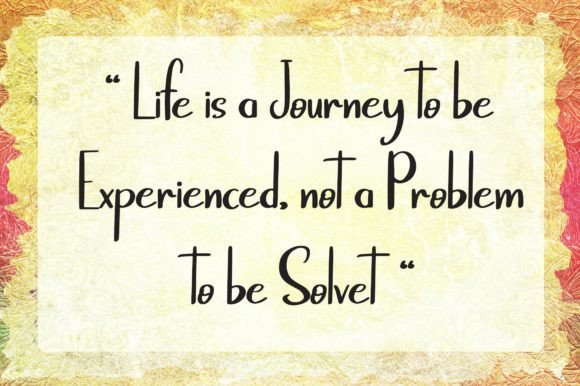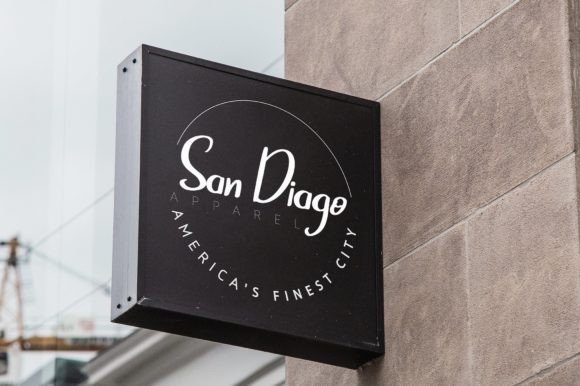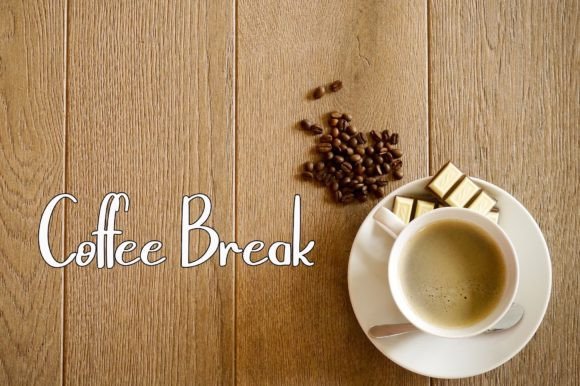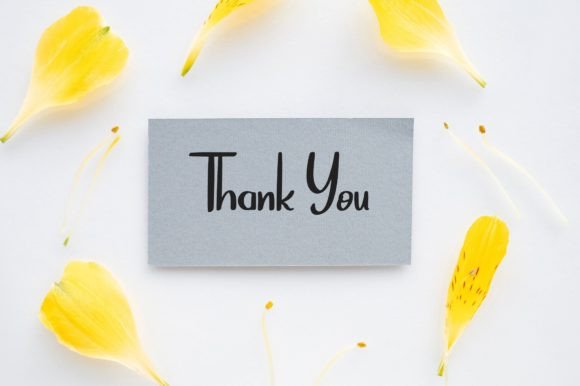
Introducing Farmhouse Font: The Perfect Addition to Your Design Toolkit
Are you a designer, crafter, or educator looking for a font that adds a personal touch to your creations? Look no further than Farmhouse Font, a delicate and simple-lettered handwritten font that’s perfect for a variety of projects. In this article, we’ll explore the features and benefits of Farmhouse Font, and show you how it can elevate your designs to the next level.
Farmhouse Font is a beautiful, handwritten font that’s designed to mimic the look of traditional chalkboard writing. Its delicate and simple lettering makes it perfect for creating chalkboard quotes, teaching materials, and other designs that require a personal and realistic feel. With its authentic look and feel, Farmhouse Font is ideal for designers and crafters who want to add a touch of warmth and personality to their work.
- Delicate and simple lettering: Farmhouse Font features a beautiful, handwritten script that’s perfect for creating elegant and sophisticated designs.
- Authentic look: The font’s traditional chalkboard writing style gives it an authentic look that’s perfect for creating realistic and eye-catching designs.
- Perfect for chalkboard quotes: Farmhouse Font is specifically designed for creating chalkboard quotes, making it a must-have for designers and educators who want to create stunning and inspiring quotes.
- Great for teaching materials: The font’s clear and easy-to-read design makes it perfect for creating teaching materials, such as worksheets, handouts, and presentations.
Benefits of Using Farmhouse Font
So why choose Farmhouse Font for your design projects? Here are just a few benefits of using this beautiful font:
- Adds a personal touch: Farmhouse Font’s handwritten design gives your creations a personal and realistic feel that’s hard to achieve with other fonts.
- Versatile: The font’s simple and elegant design makes it perfect for a variety of projects, from chalkboard quotes to teaching materials and more.
- Easy to read: Farmhouse Font’s clear and simple design makes it easy to read, even at small sizes.
- Unique and eye-catching: The font’s traditional chalkboard writing style gives it a unique and eye-catching look that’s sure to stand out from the crowd.
How to Use Farmhouse Font in Your Designs
Using Farmhouse Font in your designs is easy! Here are a few tips to get you started:
- Pair it with other fonts: Farmhouse Font looks great paired with other fonts, such as bold sans-serif fonts or elegant script fonts.
- Use it for headings and titles: The font’s clear and easy-to-read design makes it perfect for headings and titles.
- Add some texture: To give your designs an extra touch of authenticity, try adding some texture to your Farmhouse Font text, such as a chalkboard or blackboard texture.
Tips and Tricks for Getting the Most Out of Farmhouse Font
Here are a few tips and tricks to help you get the most out of Farmhouse Font:
- Experiment with different sizes and colors: Farmhouse Font looks great in a variety of sizes and colors, so don’t be afraid to experiment and find the look that works best for your design.
- Use it for digital and print projects: Farmhouse Font is perfect for both digital and print projects, from social media graphics to flyers and brochures.
- Combine it with other design elements: Farmhouse Font looks great paired with other design elements, such as images, illustrations, and textures.